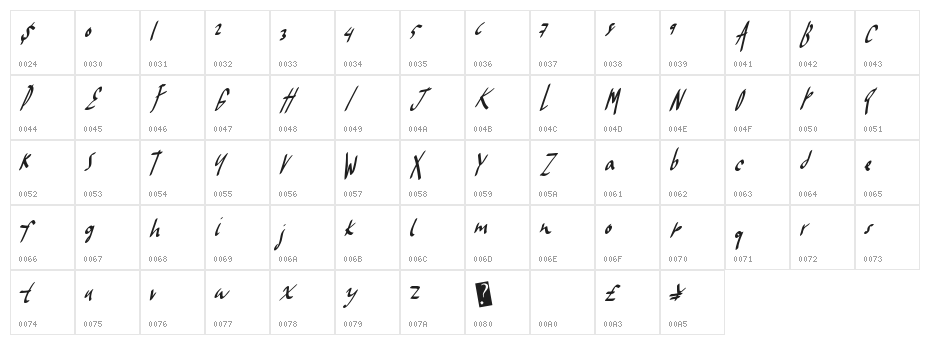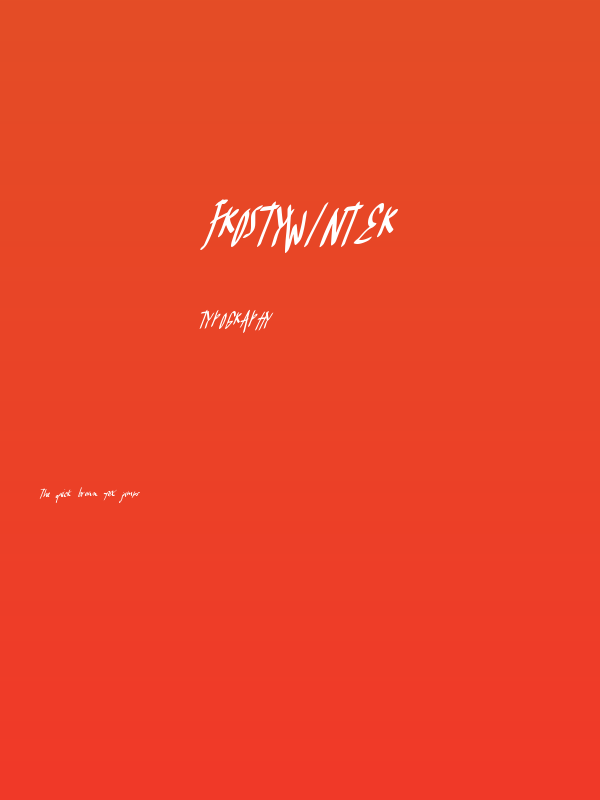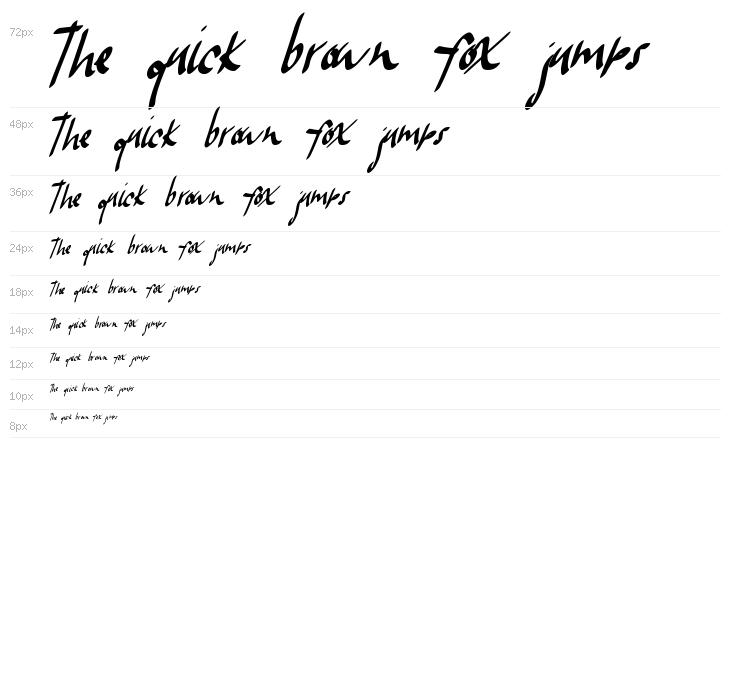
FrostyWinter Font
This font exudes a dynamic and energetic style, characterized by its sharp, angular strokes and a handwritten appearance. The uppercase letters are bold and slightly slanted, giving a sense of movement and flair. The lowercase letters maintain a consistent flow, with some characters extending below the baseline, adding to its casual yet sophisticated look. Numbers are clear and distinct, matching the overall aesthetic. The special characters are creatively designed, fitting seamlessly with the rest of the font. This font is ideal for projects that require a personal touch or a sense of urgency and excitement.